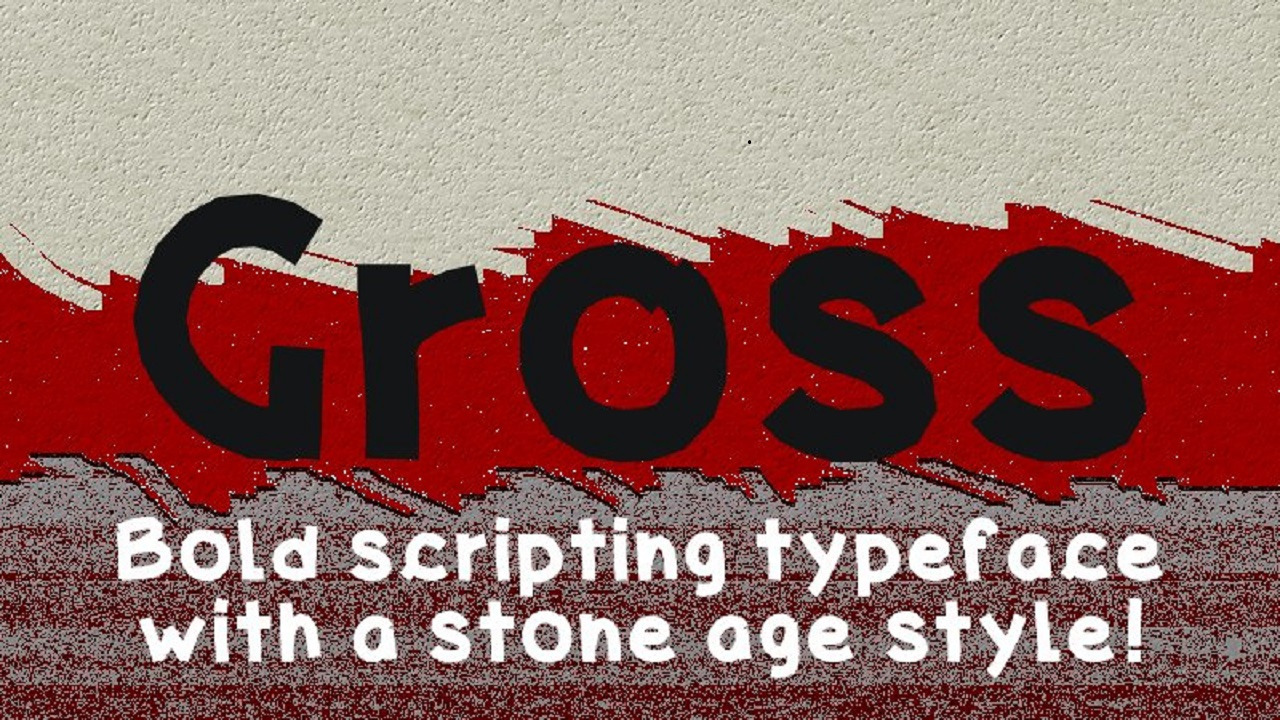
Gross, a bold script font
Gross font is a bold script typeface with a rudimentary and raw, stone age style. Gross font can be used to give you a stone age or strong message for your next design work.
Gross font features: